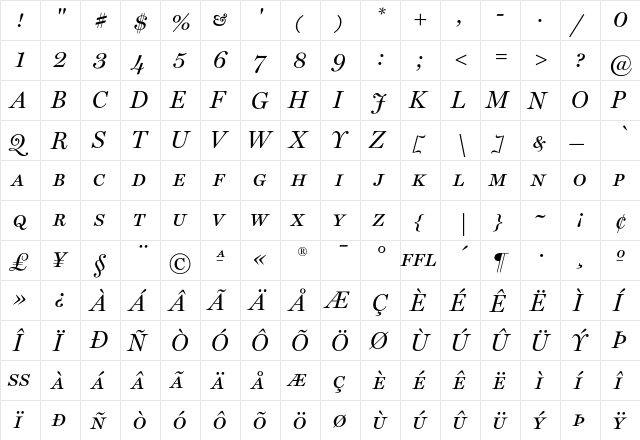
Miller Display SC Italic
Design Context for Miller Typeface
Miller is built around its visual character rather than neutral utility — its distinctive forms are designed to make an impression at display sizes. The slanted form adds forward momentum and visual energy.
Font Pairing: Pair with a clean neutral sans-serif for body copy to let Miller's character lead without overwhelming the composition.
Pro Tip: Use Miller exclusively at display sizes — it was designed to be seen, not read at length. Let a neutral companion handle body copy.